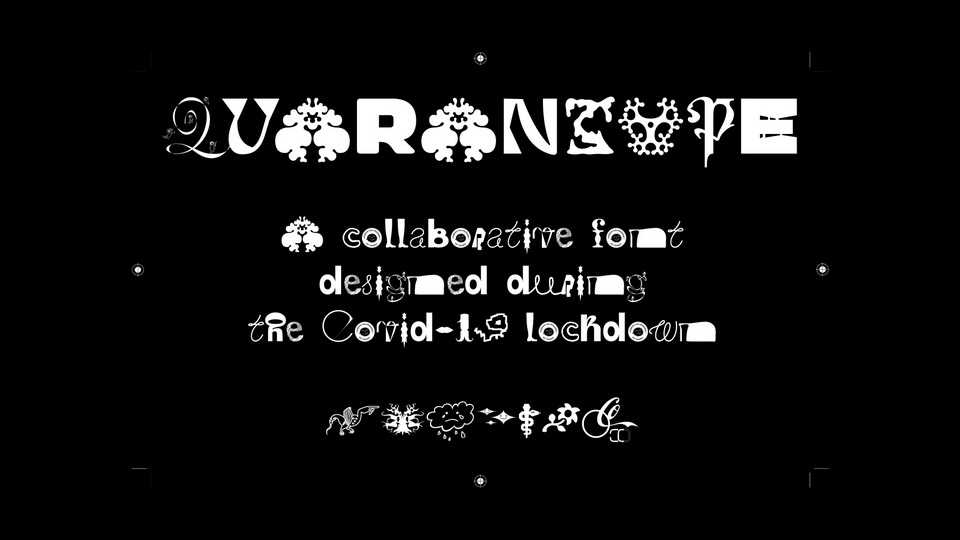
Download Quarantype typeface, a collaborative font family designed during the Covid-19 lockdown. The font is available in two styles: Regular and Oblique.